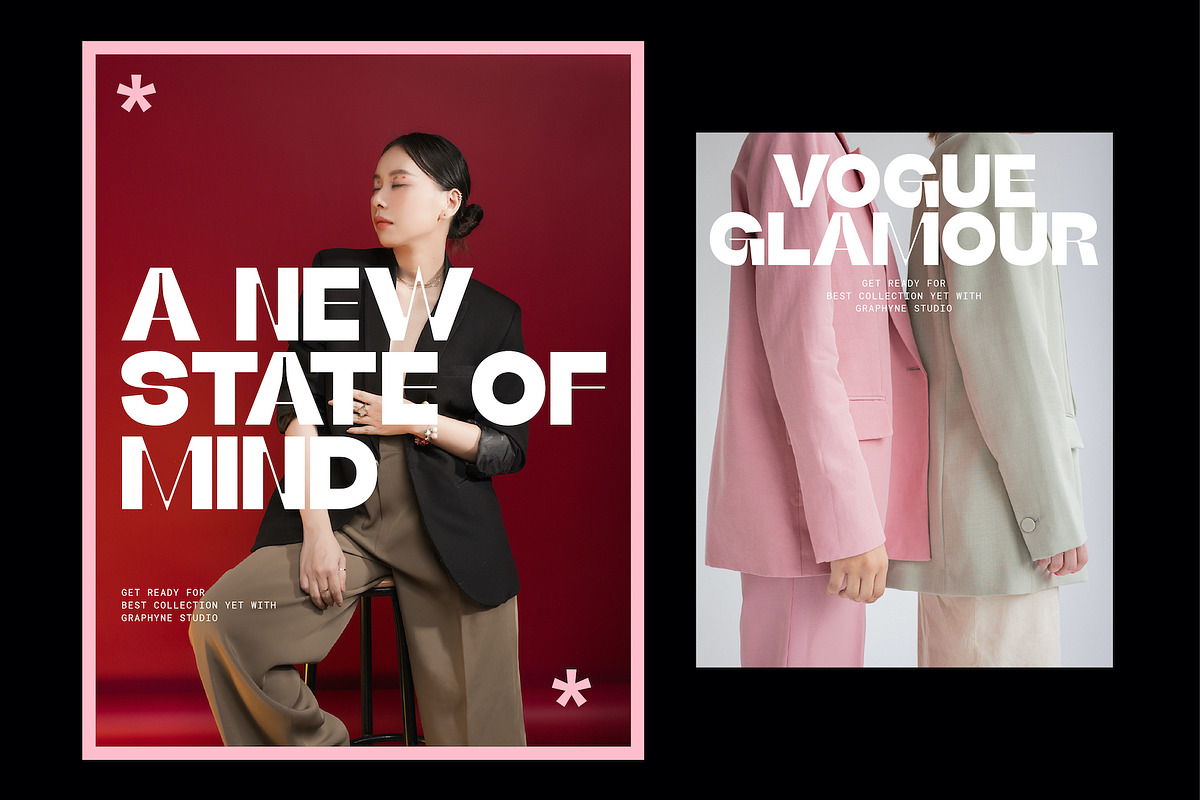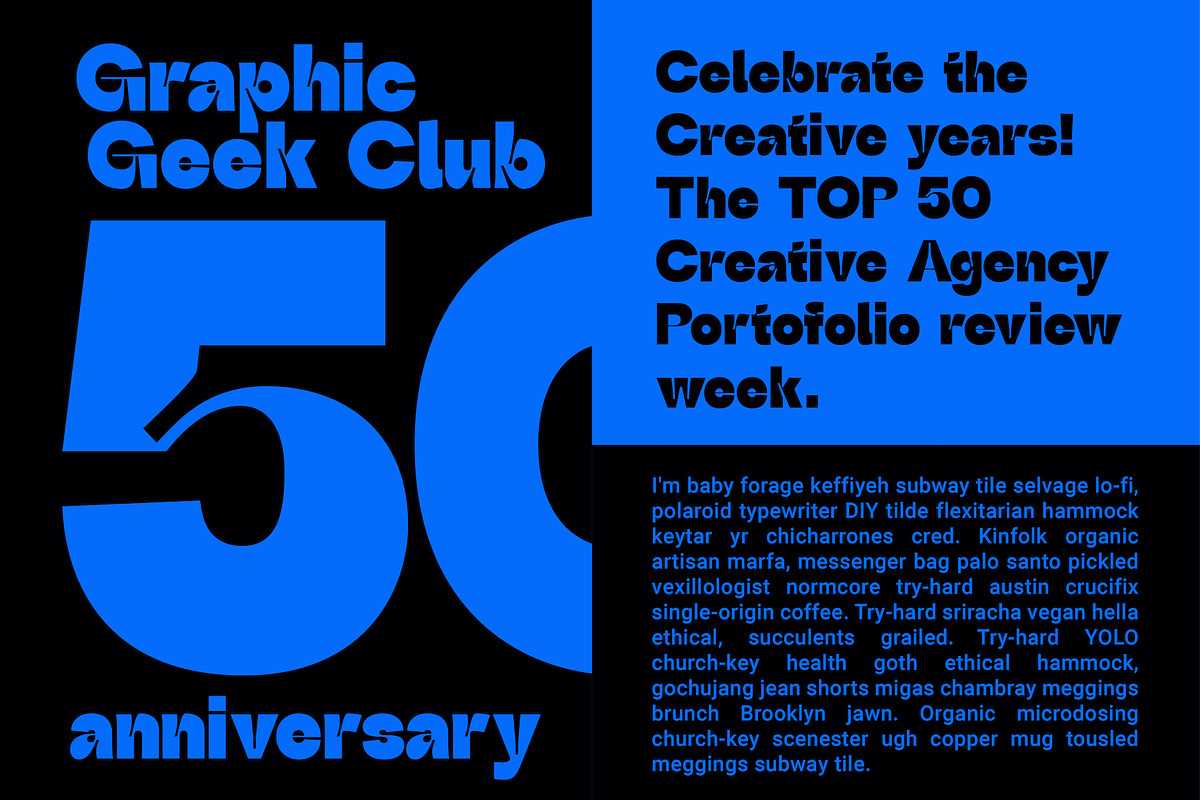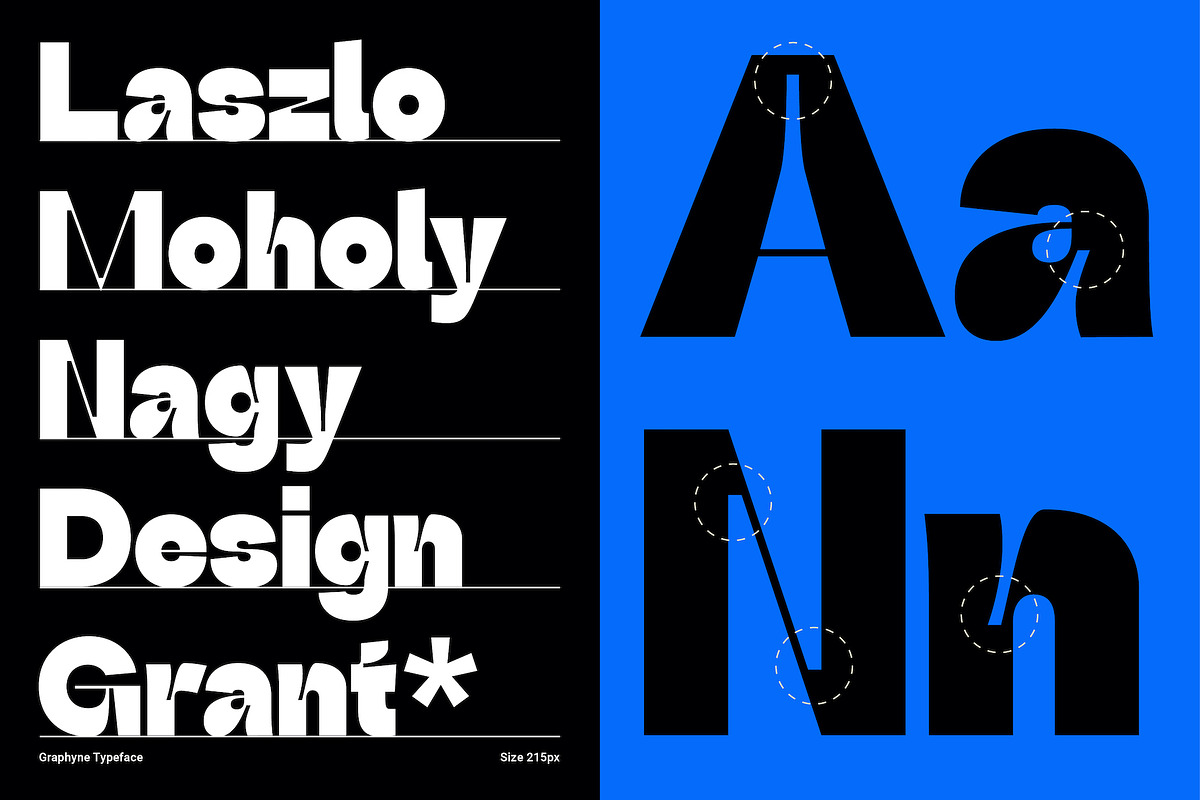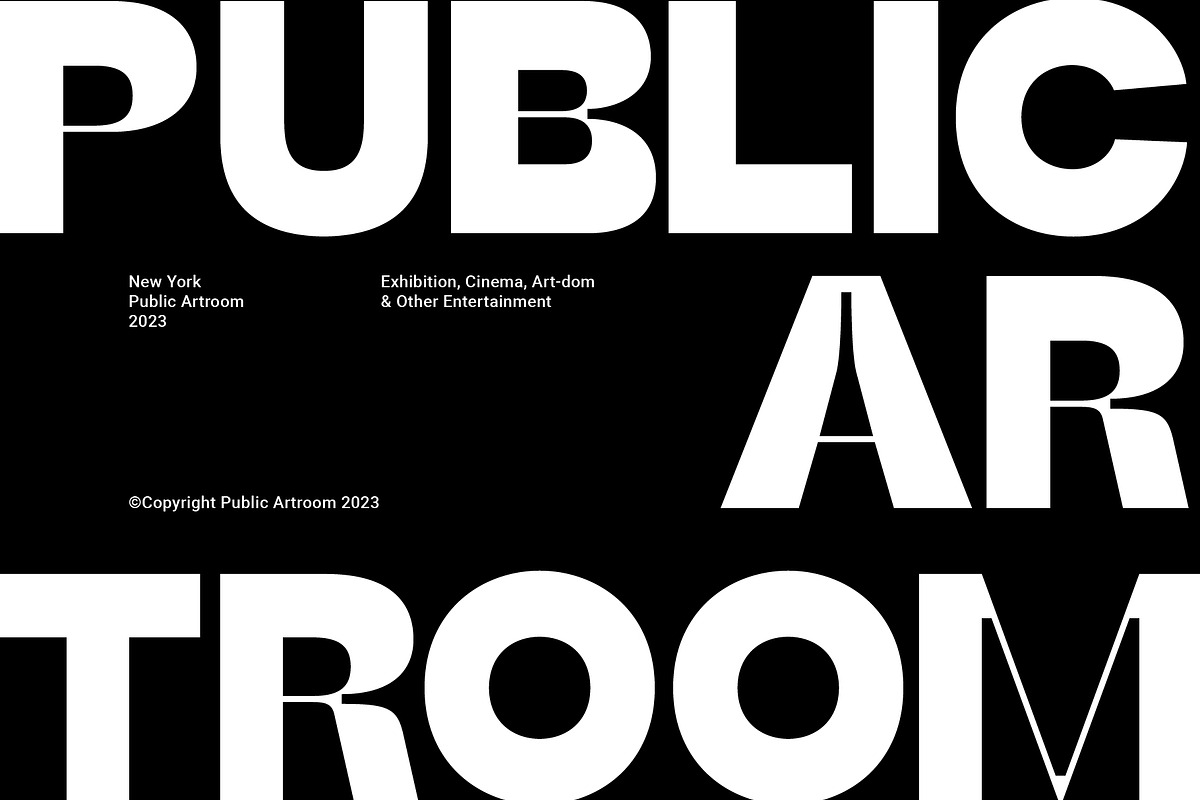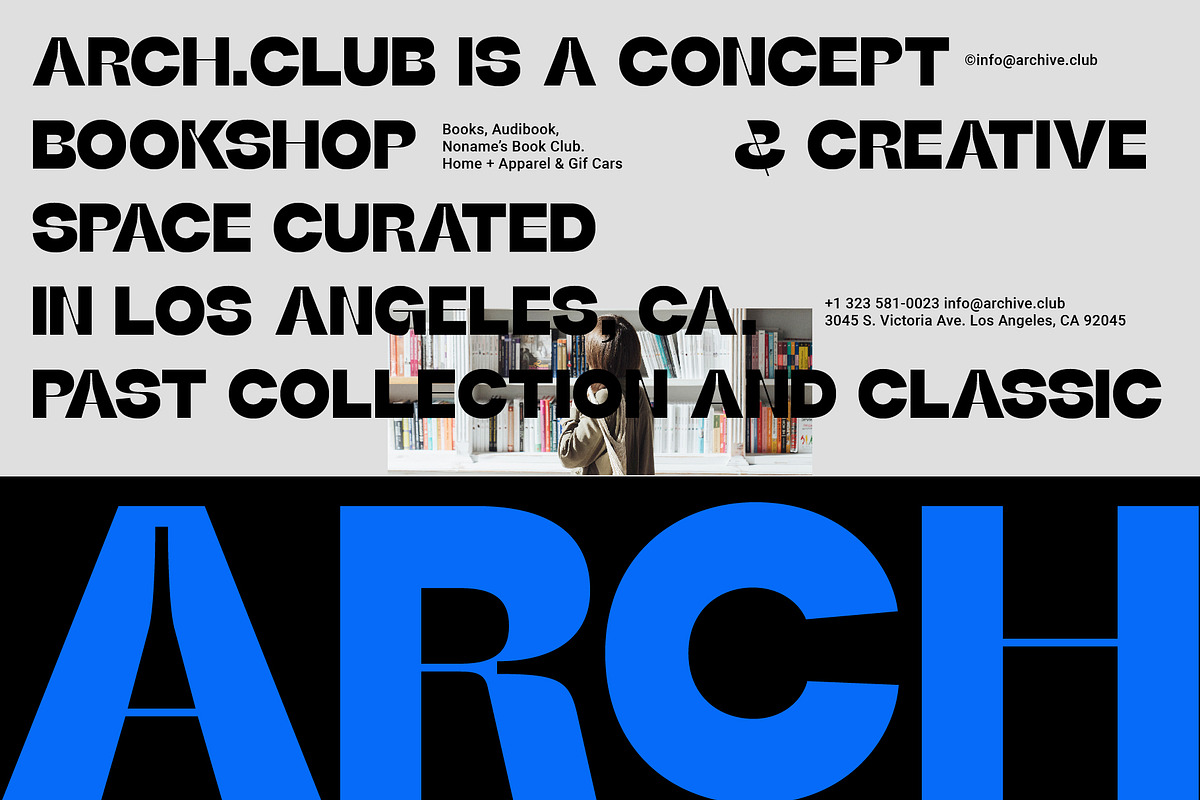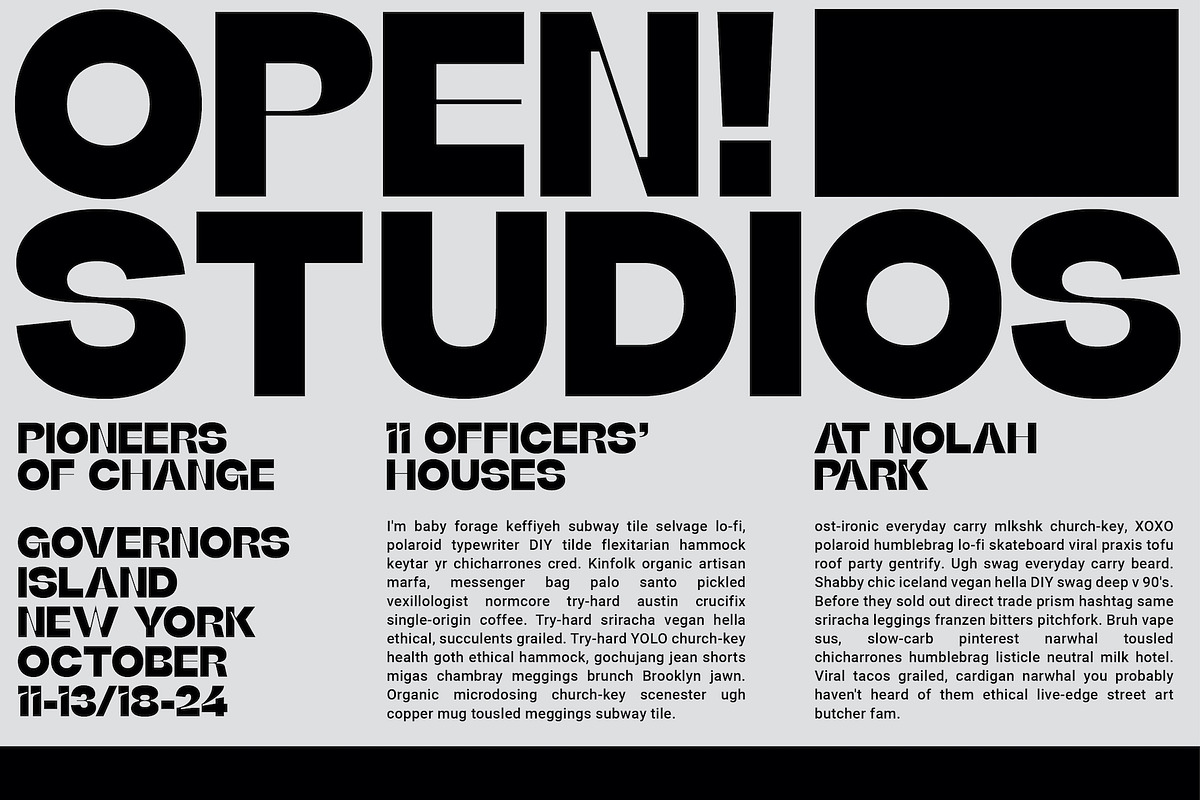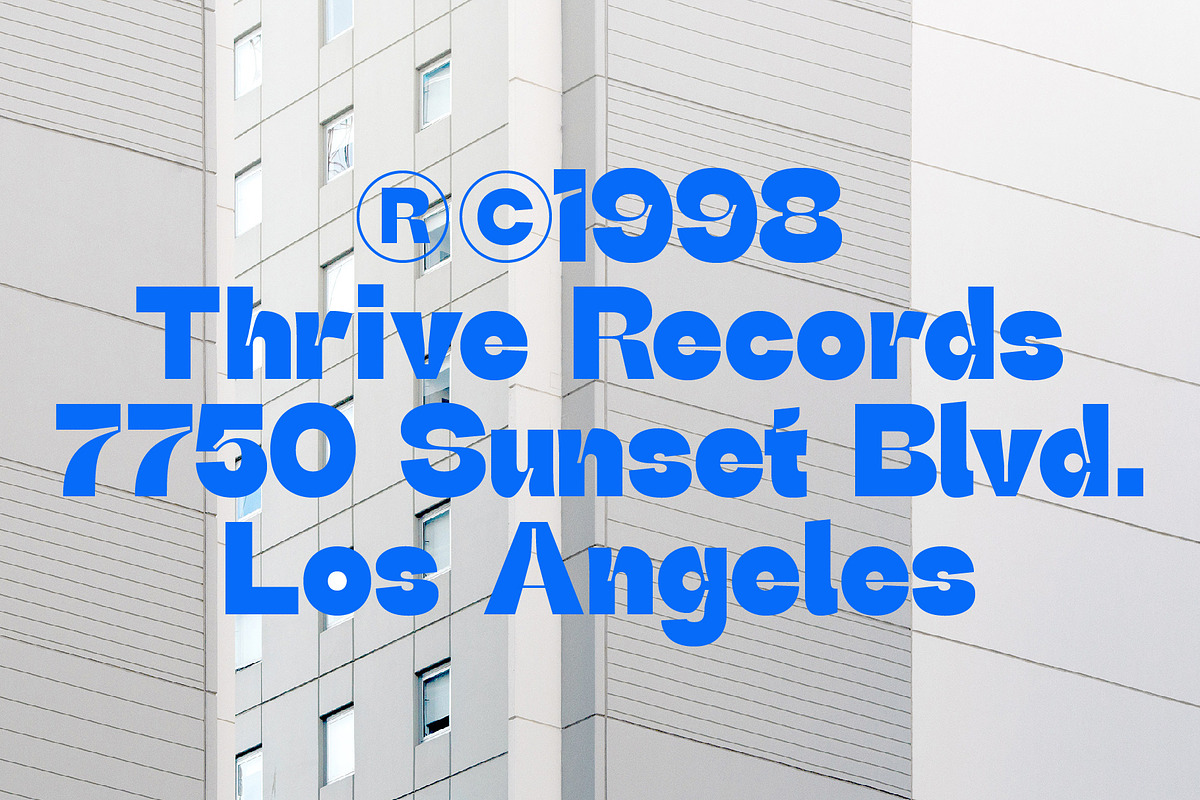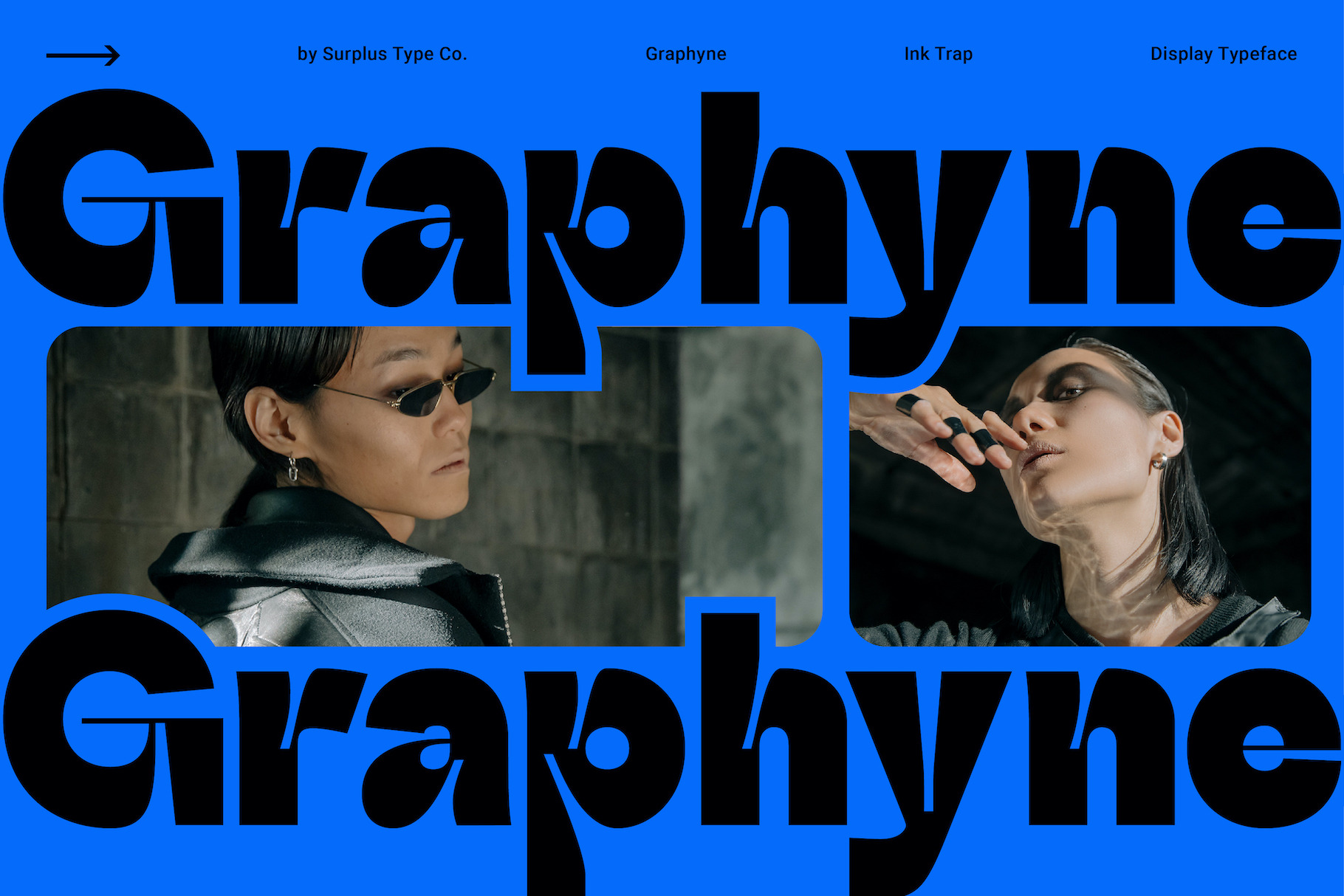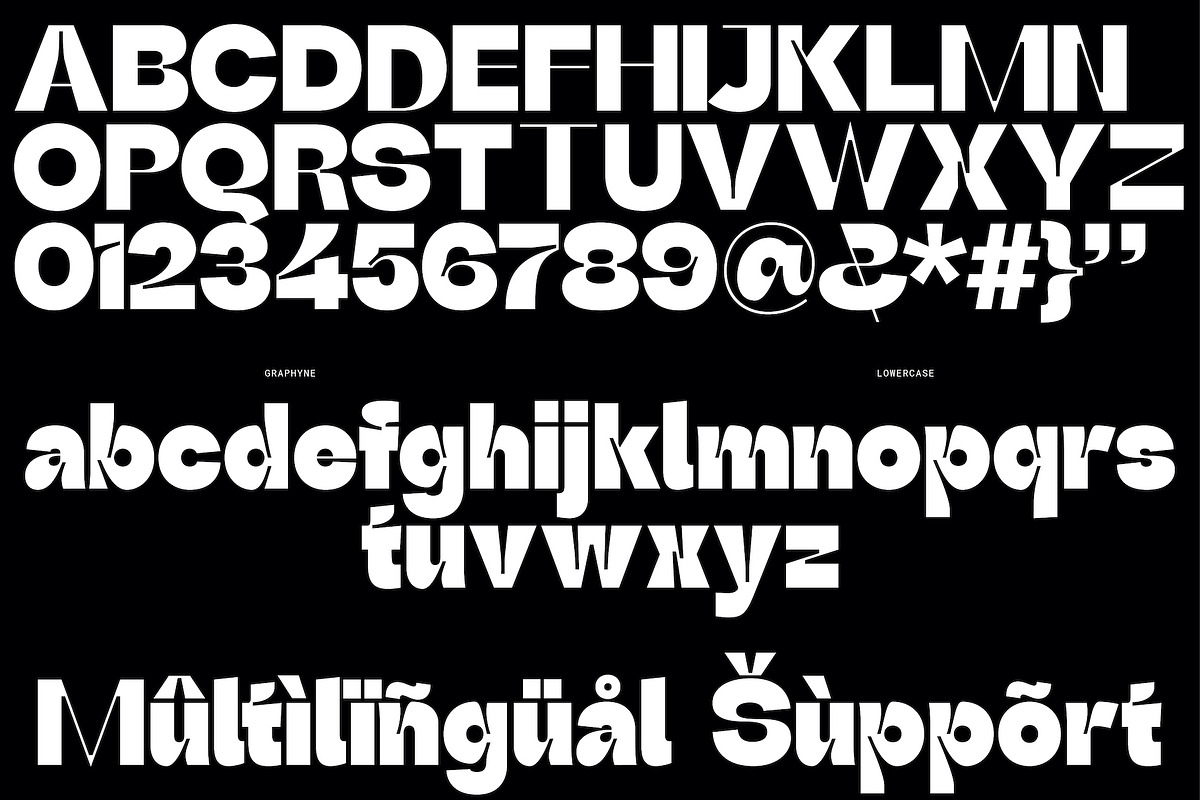
Graphyne - Ink Trap Display Font
Graphyne is a chunky sans serif display font with exaggerated ink trap features.
It has a high contrast appearance. It carries an overall bold look, while also featuring some thin crossbars and components that help it pop in large sizes.
This contrasting appearance makes the font perfect for use in big titles, headlines, branding projects, editorial layouts & so much more!
Graphyne includes a full set of multilingual characters.